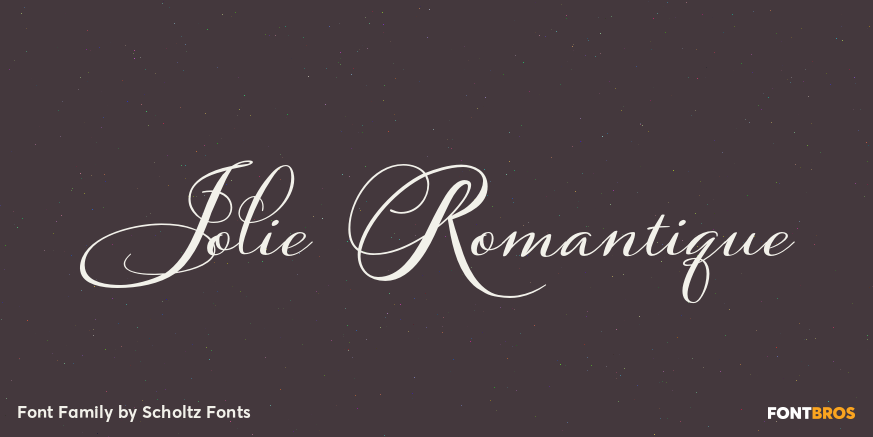
Jolie Romantique
About Jolie Romantique
Jolie personifies romance. With its dramatic swashes, generously curved lines, and full, richly fashioned upper case characters, it evokes floral perfumes, roses, violin music and romantic evenings. The richly complex uppercase characters provide a backdrop…